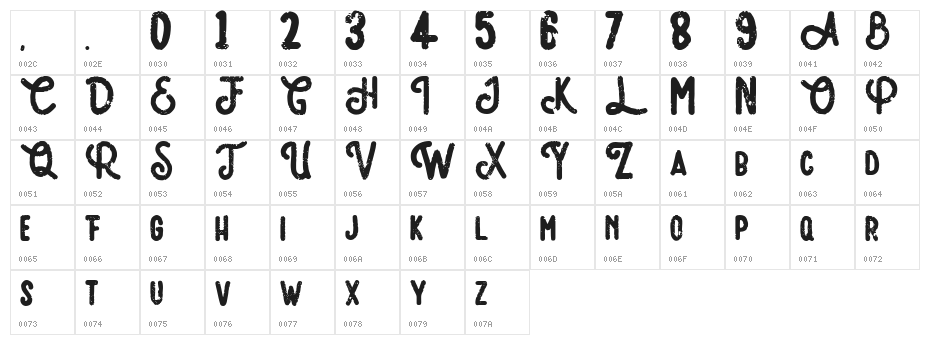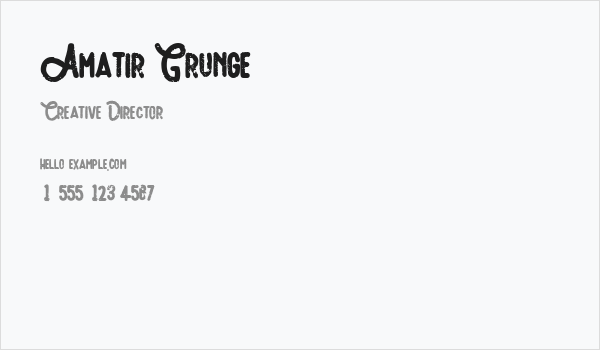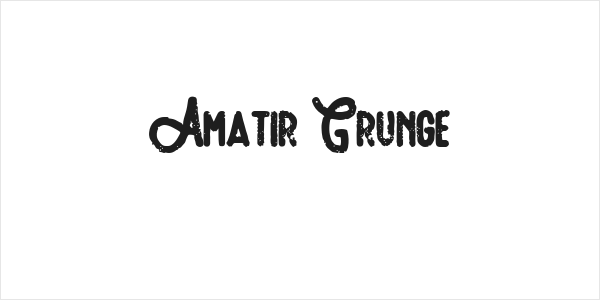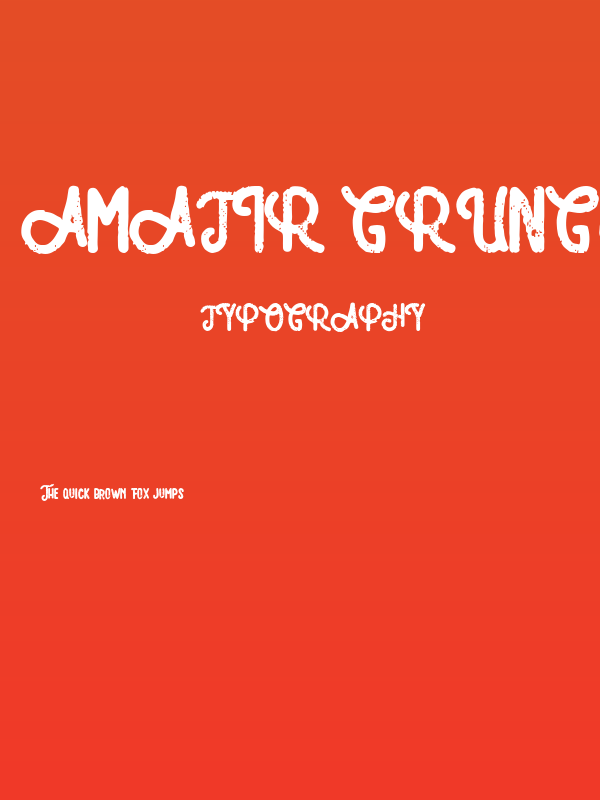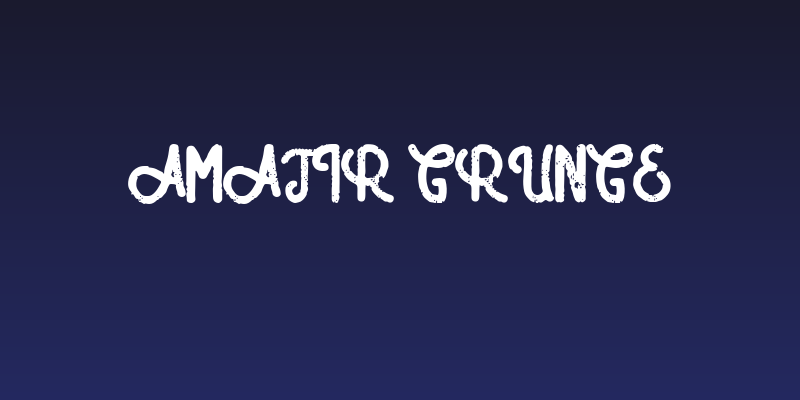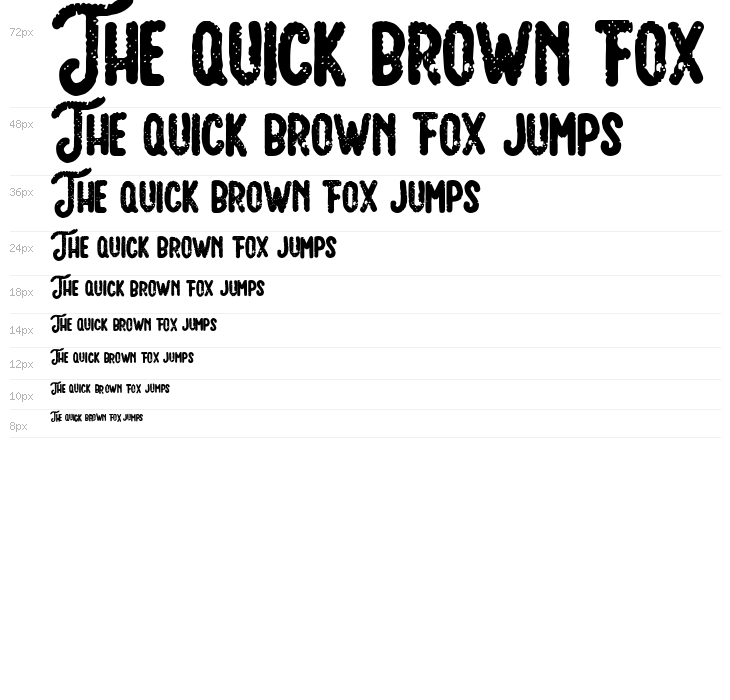
Amatir Grunge Font
Amatir Grunge Description
This font features a bold and distressed style, characterized by its grunge texture and uneven edges. The uppercase letters are prominent and display a rough, weathered appearance, giving them a rugged and edgy feel. The lowercase letters maintain the same distressed aesthetic, ensuring consistency throughout the typeface. Numbers and special characters are also included, each carrying the same grunge effect that adds to the overall theme. This font is perfect for projects that require a raw and authentic look, such as music posters, album covers, or any design that aims to convey a sense of rebellion or nonconformity.
| Overall Style | Grunge, Edgy, Raw |
| Proposed Projects | Ideal for music posters, album covers, streetwear branding, and edgy graphic designs. |